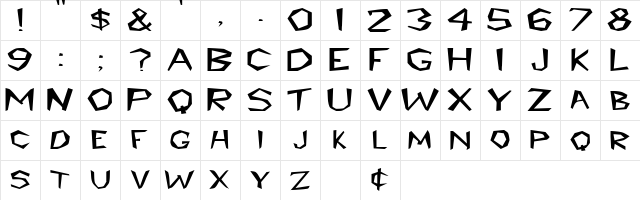
PrehistoricExtended Regular Font Preview
PrehistoricExtended Regular
Design Context for PrehistoricExtended Typeface
PrehistoricExtended is a composed and adaptable typeface that performs quietly and consistently across a wide range of design contexts.
Pro Tip: Use PrehistoricExtended in both headline and body roles to test its range before committing to a single application.